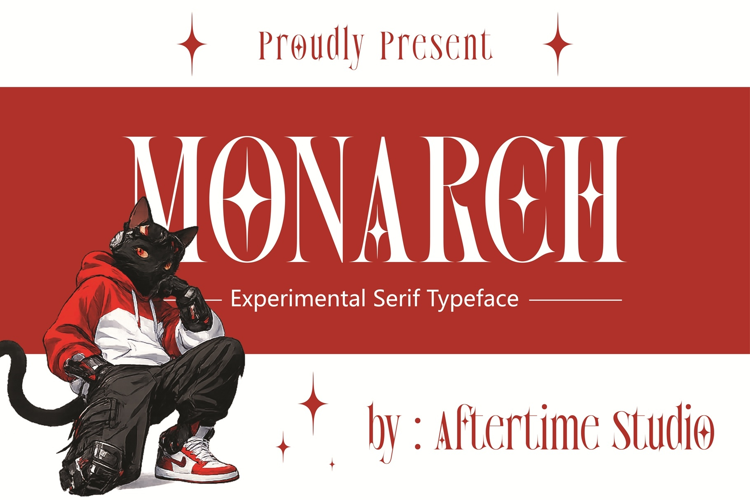
AT MONARCH - Experimental Serif
AT MONARCH – Experimental Serif Typeface Streetwear Cyberpunk Serif Display Font
MONARCH is a bold experimental serif display font inspired by streetwear culture, cyberpunk aesthetics, techwear fashion, and modern luxury branding. Designed to create strong visual impact, this decorative serif typeface combines sharp details, dramatic contrast, and futuristic elegance in one powerful font.
Perfect for designers looking for a streetwear font, cyberpunk font, luxury serif font, esports logo font, or bold display typography with unique personality.
Editorial Headlines
If you're searching for a bold serif font for branding, modern display font, or experimental typography for logo design, MONARCH delivers a powerful and premium look.
Optimized for headlines, logos, branding, and large typography applications.